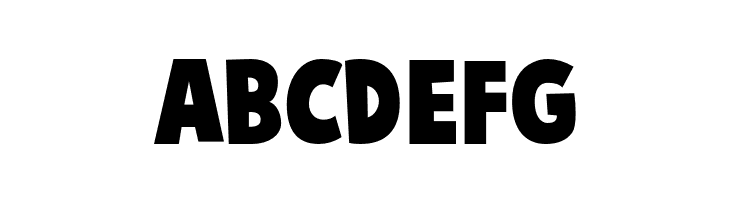
A playful, heart-themed font with a hand-drawn, whimsical style.
A playful, handwritten font with a whimsical and casual style.
A bold, playful font with rounded, hand-drawn characters.